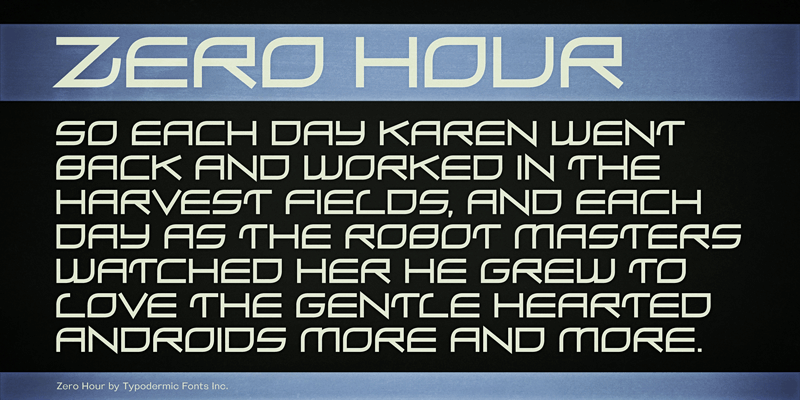
Preview and download Zero Hour Font. Created by Typodermic Fonts in Techno Sci-fi styles with 100% Free license.
Zero Hour is an outstretched digital display font. This font includes a license that allows free commercial use: sometimes referred to as a desktop license. This allows you to install the font on a computer and use it to create posters, web graphics, game graphics, t-shirts, videos, signs, logos and more. Read the license agreement for details. If you'd like to embed this font in an app, ebook, on the web or anything that's not covered by the desktop license agreement, visit the link below. You'll find distributors who offer different types of licenses or you can contact me for help. http://typodermicfonts.com/zero-hour/ |